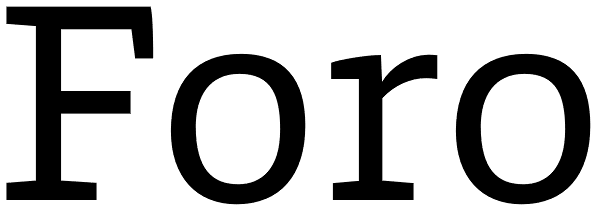
Foro
Foro was designed in 2012 to be a slab serif with an appealing flow, warm, and less harsh than many slab serifs. It evinces an attachment to humanistic shapes, models and proportions. Foro’s demonstrated strength renders it excellent for texts, and...